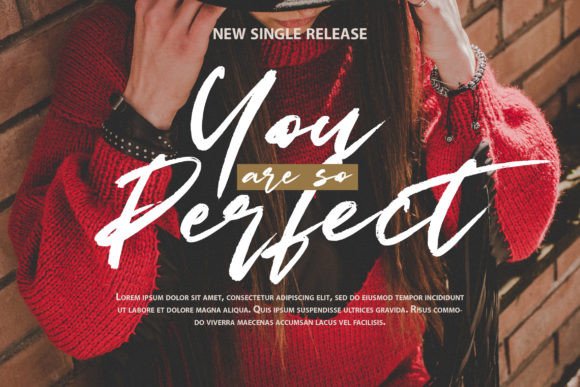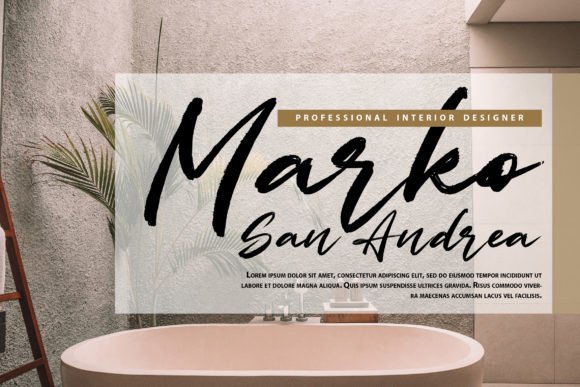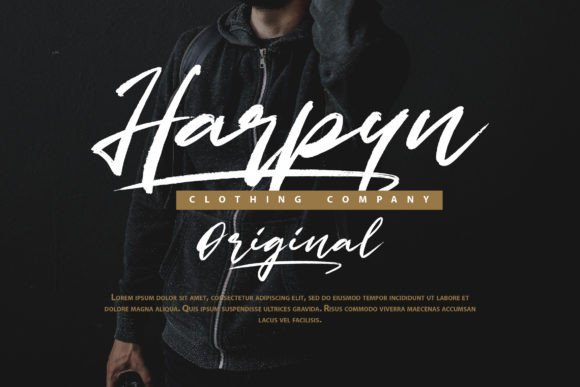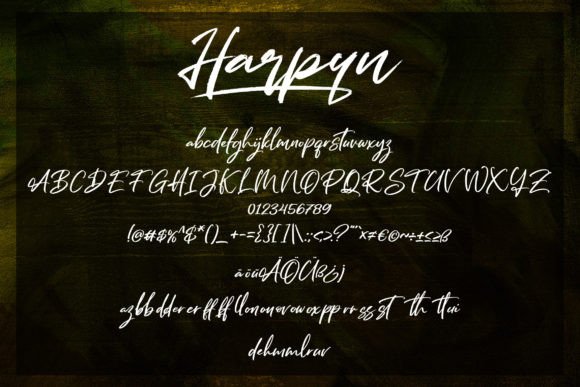
Introducing Harpyn Font: The Bold and Assertive Handwritten Font
Are you tired of using the same old fonts in your designs? Do you want to add a touch of personality and uniqueness to your creations? Look no further than Harpyn Font, a bold and assertive handwritten font that’s sure to elevate your font library.
What Makes Harpyn Font Special?
Harpyn Font is a game-changer for designers and crafters alike. Its bold and assertive style makes it perfect for a wide range of projects, from bold headlines to creative crafts. Whether you’re working on a logo, brochure, or social media graphic, Harpyn Font is sure to make a statement.
One of the standout features of Harpyn Font is its versatility. No matter the topic or theme, this font will add a touch of personality and flair to your design. Whether you’re creating something fun and playful or serious and professional, Harpyn Font is the perfect choice.
The Benefits of PUA Encoding
Harpyn Font is PUA (Private Use Area) encoded, which means that you can access all the glyphs and ligatures with ease. But what does that mean exactly? In simple terms, PUA encoding allows you to access a wide range of special characters and glyphs that are not available in standard fonts.
With Harpyn Font, you can easily access swashes, ligatures, and other decorative elements that will take your designs to the next level. This means that you can create unique and eye-catching text that will set your designs apart from the rest.
Harpyn Font is perfect for designers and crafters who want to add a personal touch to their creations. Whether you’re creating digital products or physical goods, this font is sure to be a valuable addition to your font library.
For designers, Harpyn Font is a great choice for a wide range of projects, from branding and advertising to packaging and web design. Its bold and assertive style makes it perfect for headlines, titles, and other display text.
For crafters, Harpyn Font is a great choice for creating handmade cards, scrapbook pages, and other paper crafts. Its unique and playful style makes it perfect for adding a personal touch to your creations.
How to Use Harpyn Font
Once you’ve selected Harpyn Font, you can start experimenting with different styles and effects. Try pairing it with other fonts for a unique contrast, or use it on its own for a bold and assertive look.
Here are a few tips and tricks for getting the most out of Harpyn Font:
- Experiment with different sizes and styles to find the perfect look for your design.
- Pair Harpyn Font with other fonts for a unique contrast.
- Use Harpyn Font for headlines and titles to add a bold and assertive touch.
In conclusion, Harpyn Font is a bold and assertive handwritten font that’s sure to elevate your font library. Its versatility, PUA encoding, and unique style make it perfect for a wide range of projects, from bold headlines to creative crafts.